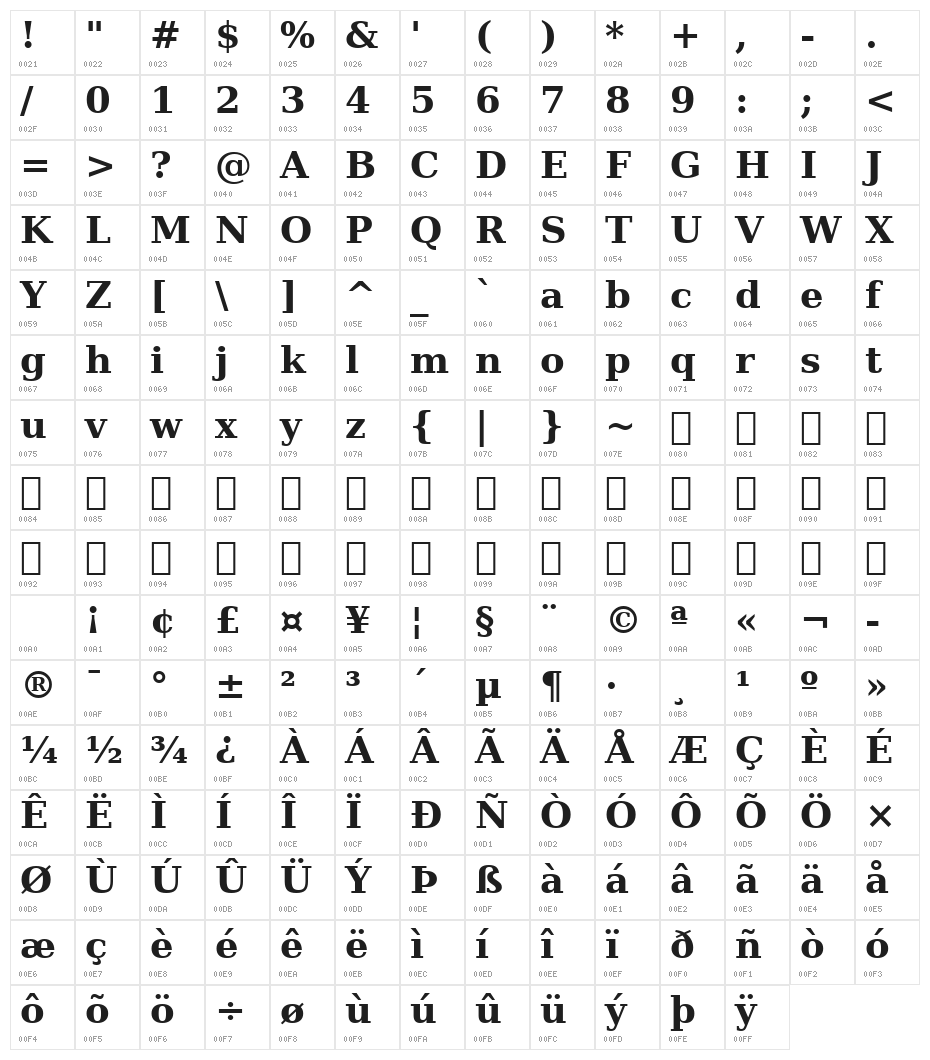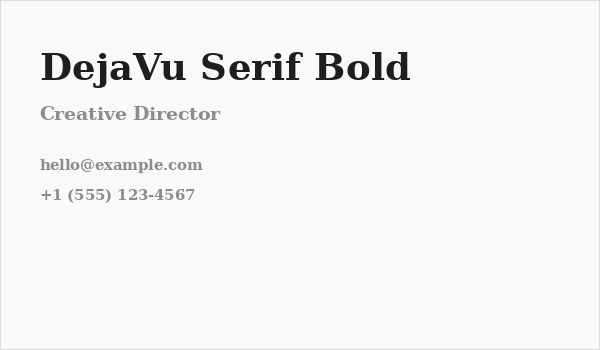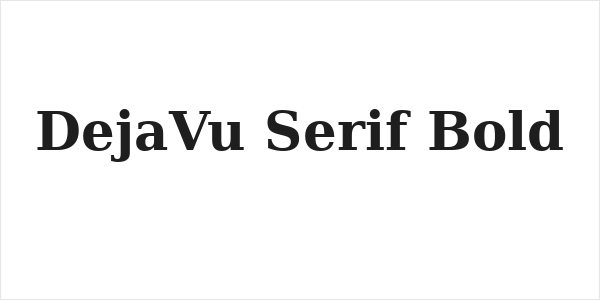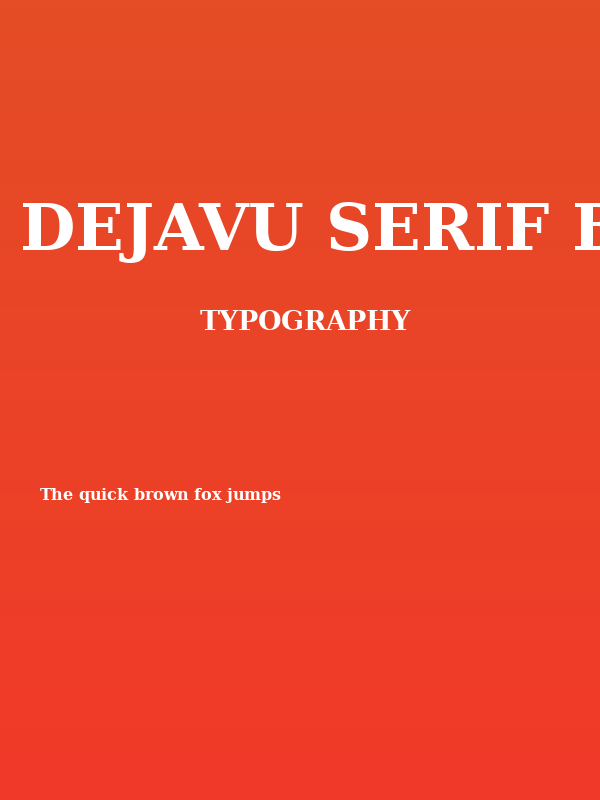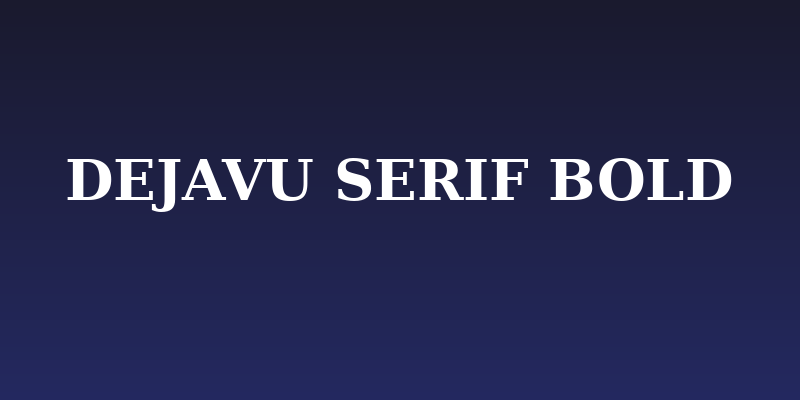
DejaVu Serif Bold Font
DejaVu Serif Bold Description
This font features a bold and classic serif style, characterized by its strong and pronounced serifs that give it a traditional and authoritative appearance. The strokes are thick and consistent, providing a sense of stability and readability. The uppercase letters are well-proportioned with a slightly condensed feel, while the lowercase letters maintain a balanced and harmonious look. The numerals are clear and distinct, making them easily legible. Special characters are designed with the same boldness, ensuring consistency across all glyphs. This font is ideal for projects that require a formal and professional tone.
Overall StyleClassic
Proposed ProjectsIdeal for use in book titles, formal invitations, academic publications, and corporate branding.